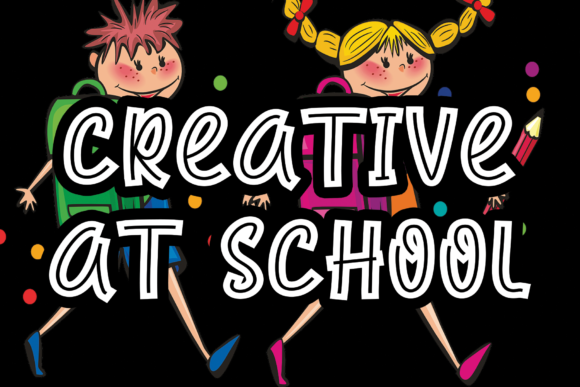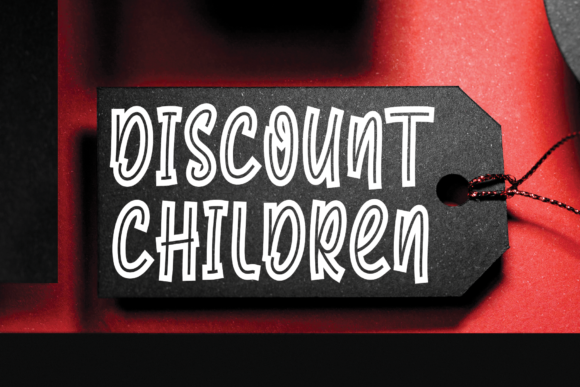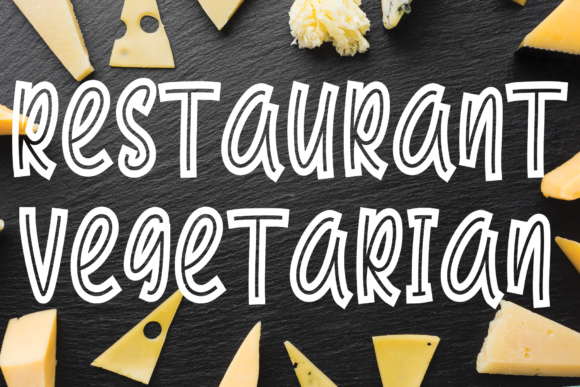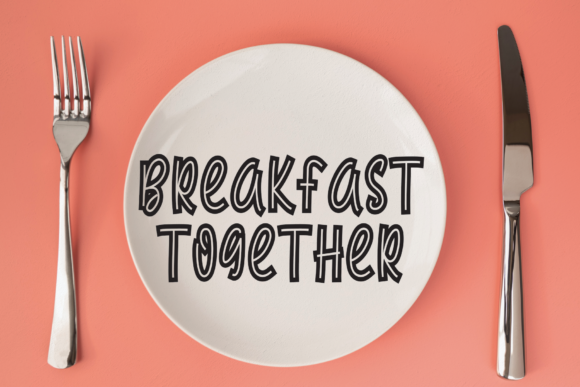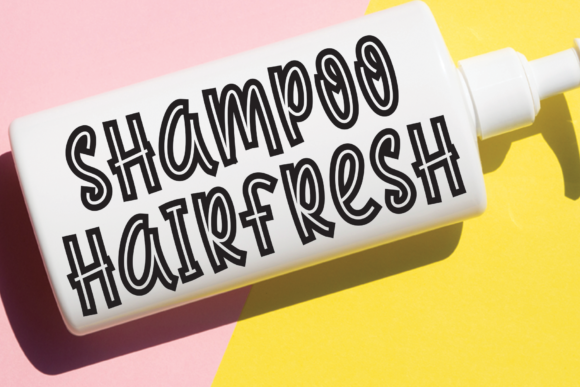
Unleash Your Creativity with the Perfect Font
Remember the thrill of creating something new and exciting as a kid? Whether it was drawing a masterpiece, writing a story, or crafting a DIY project, the possibilities seemed endless. As adults, we still crave that same sense of creative freedom, and the right tools can make all the difference. That’s where the Creative at School Font comes in – a fresh and flexible display font designed to bring a touch of whimsy to your designs.
This versatile font is perfect for cartoon-inspired projects, children’s games, and any other creation that requires a playful and approachable vibe. Whether you’re a seasoned designer or just starting out, the Creative at School Font is an invaluable asset that can help you stand out from the crowd and connect with your audience on a deeper level.
Creative at School Font Key Features
- Font Family: The font family includes 2 styles (Regular and Italic) and 4 weights (Light, Regular, Medium, and Bold).
- Character Count: The font includes a vast range of characters, including Latin, Cyrillic, and Greek alphabets, as well as punctuation marks and symbols.
- Unique Characteristics: The font features a playful and creative design, making it suitable for educational materials, children’s books, and other applications where a friendly tone is desired.
Review: Creative at School Font
Overall, I was a bit skeptical about the Creative at School Font at first, but it’s actually quite charming. Here are the things that really stand out to me: ✨
- It’s playful and fun, perfect for school projects or educational materials.
- The bold weights are great for titles and headings, while the light weights are suitable for body text.
- The font is highly customizable, making it easy to adjust to fit different design needs.
- The style is modern and kid-friendly, making it perfect for educational institutions or apps targeting young learners.
- The font is not ideal for professional or formal settings, as it may come across as too playful or childish.
- The character set is limited, which may make it difficult to use for languages that require a wide range of characters.
- The font may not be suitable for very small or large text sizes, as it can become difficult to read.
Overall, I think the Creative at School Font is a solid choice for educational design projects or apps targeting young learners. It’s fun, customizable, and highly suitable for its intended use. However, it may not be the best choice for more formal or professional settings.
The “Creative at School Font” is perfect for creating engaging and playful designs for educational materials, such as:
- Posters and flyers for school events
- Reports and presentations
- Infographics and diagrams
Remember to experiment with different font sizes, colors, and styles to get the most out of this font.